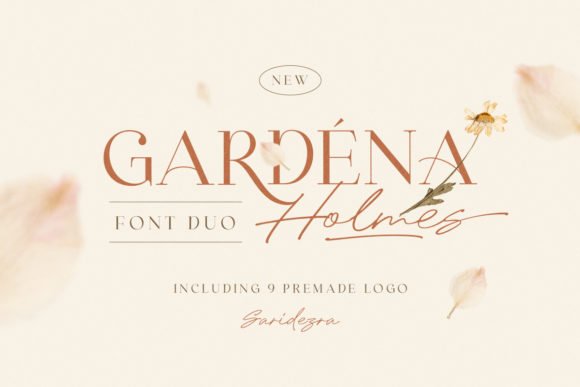
Adding a Touch of Whimsy to Your Creations
Have you ever been working on a craft project, and the right font just seems to be missing to tie everything together? You know the feeling when the words just flow onto the page, and your design starts to come alive. That’s exactly what happens when you incorporate the charming Gardena Holmes Font into your work.
Gardena Holmes Font is a delightful duo of serif and script fonts that work beautifully together or on their own. Whether you’re creating invitations, greeting cards, or digital art, this lovely font pair adds a chic and cheery touch that’s sure to delight. As a PUA-encoded font, you can easily access all the glyphs and swashes, giving you endless creative possibilities.
For designers, Gardena Holmes Font is a valuable asset that can elevate your designs and make them stand out. With its versatility and charm, it’s a must-have in any font collection.
Gardena Holmes Font Key Features
- Font Family: Gardena Holmes is a unique, high-end script font.
- Unique Characteristics: This elegant script font features intricate details, flowing lines, and a touch of sophistication, making it ideal for wedding invitations, luxury branding, and high-end packaging design.
Gardena Holmes Font Review
Overall, I think the Gardena Holmes font is a beautiful, elegant addition to any design project. ✨ The curves are smooth, and the subtle details make it perfect for headings and titles. It’s also a great choice for body text, especially when paired with a clear, sans-serif font.
- ✨ Beautiful curves and subtle details make it perfect for headings and titles.
- ✨ Great for body text, especially when paired with a clear, sans-serif font.
- ✨ Highly legible and easy to read.
However, I do have some concerns about the font’s limitations. ⚠️ It’s not ideal for bold, attention-grabbing headlines, as the curves can make it look a bit too delicate. Additionally, the font’s elegance can sometimes come across as a bit too formal or even old-fashioned.
- ⚠️ Not ideal for bold, attention-grabbing headlines.
- ⚠️ Can come across as too formal or old-fashioned.
- ⚠️ Limited character set, which may not be suitable for projects with complex typography.
Overall, I think the Gardena Holmes font is a great choice for projects that require a touch of elegance and sophistication. However, it’s essential to be aware of its limitations and use it judiciously to get the best results.
To get the most out of the Gardena Holmes font, try using it in combination with other elegant fonts, such as serif or sans-serif fonts. You can also use the font to create beautiful headings and titles.
The Gardena Holmes font is perfect for use in:
- Magazine and book covers
- Wedding and event signage
Alternatives to Gardena Holmes Font
The Great Vibes font is a modern, elegant script font that is ideal for use in headings and titles. It features a flowing, cursive design that adds a touch of sophistication to any text. Great Vibes is a popular choice among designers for its versatility and readability. Compared to Gardena Holmes, Great Vibes has a more refined and polished look, making it suitable for high-end branding and advertising projects.
Carolyna Pro is a luxurious, elegant script font that is perfect for use in high-end branding, advertising, and editorial projects. It features a unique blend of classic and modern elements, making it a great choice for designers who want to add a touch of sophistication to their designs. Compared to Gardena Holmes, Carolyna Pro has a more luxurious and refined look, making it suitable for projects that require a high level of elegance and sophistication.